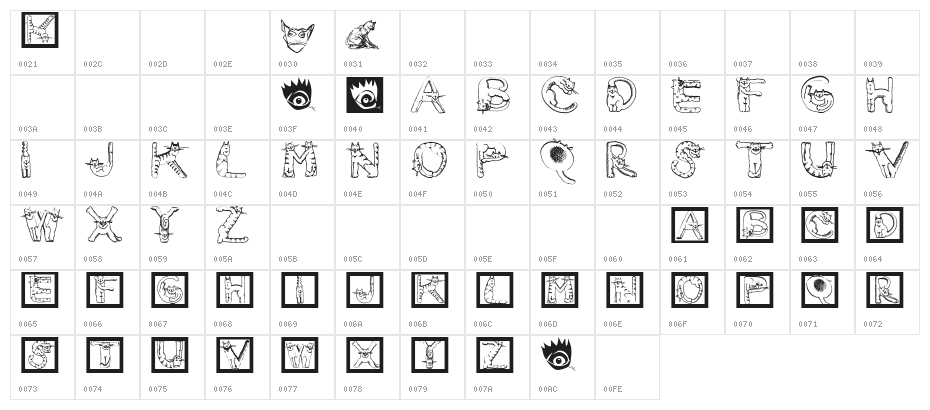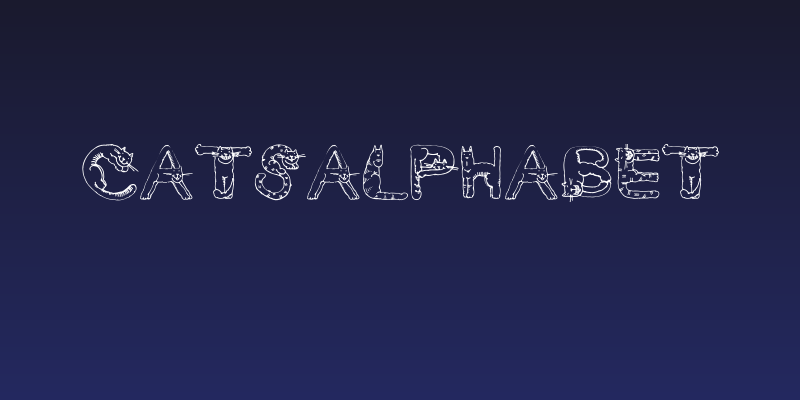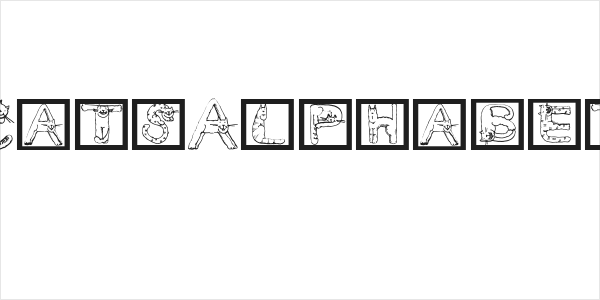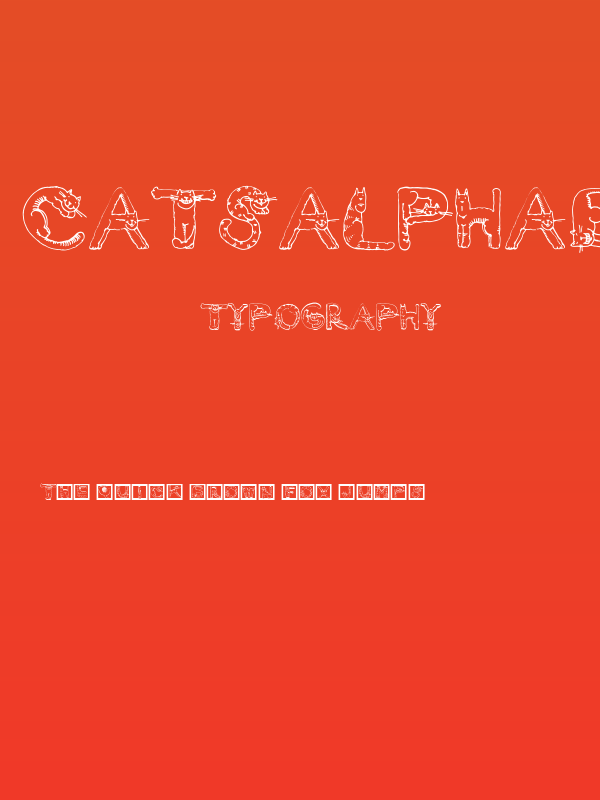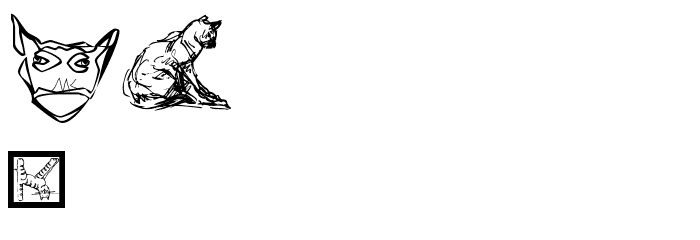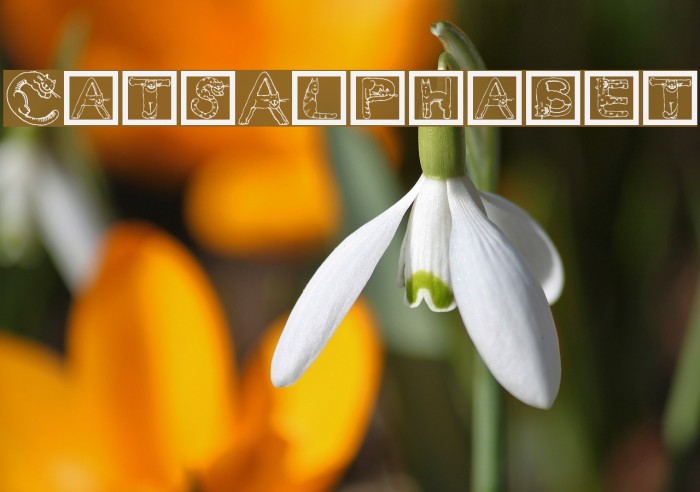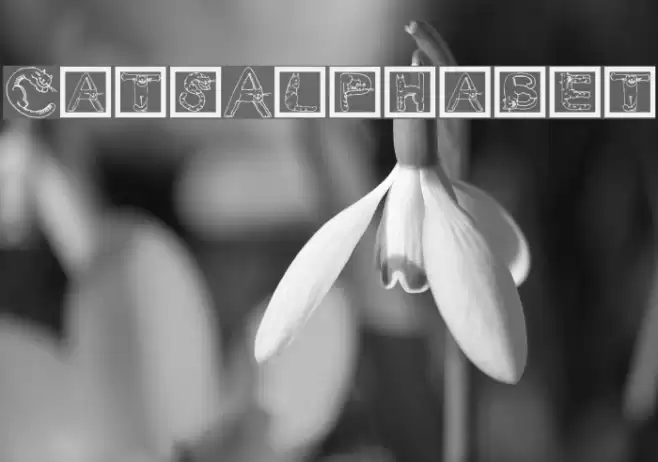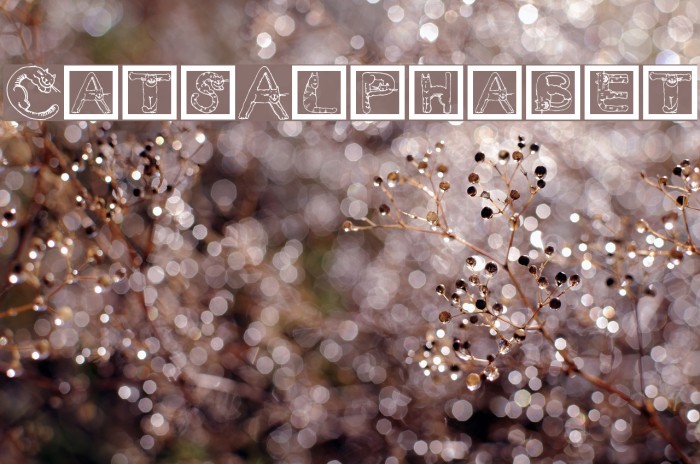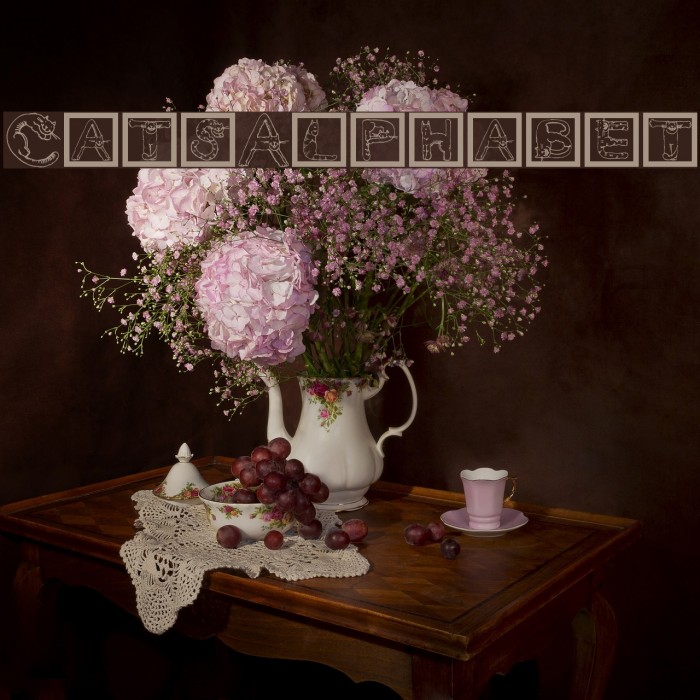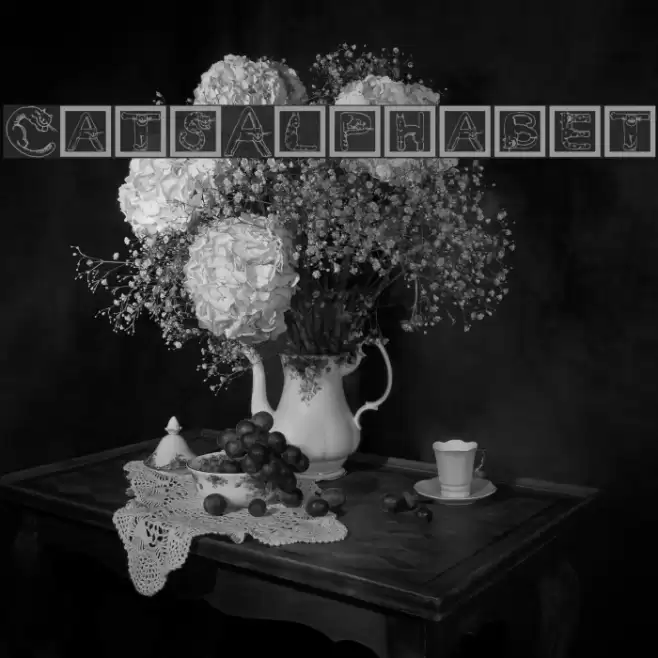
CatsAlphabet Font
CatsAlphabet Description
This playful and whimsical font features letters creatively formed with cat illustrations, each character uniquely incorporating feline elements such as tails, paws, and whiskers. The design is highly decorative, making it ideal for projects that require a fun and engaging visual style. The font is not suitable for body text due to its intricate details, but it excels in capturing attention in headlines or thematic designs. The artistic representation of cats in each letter adds a charming and humorous touch, perfect for cat-themed events or products.
| Use Case | Headlines, Logos, Thematic Designs |
| Proposed Projects | Perfect for children's books, pet-related branding, playful posters, and novelty items. |